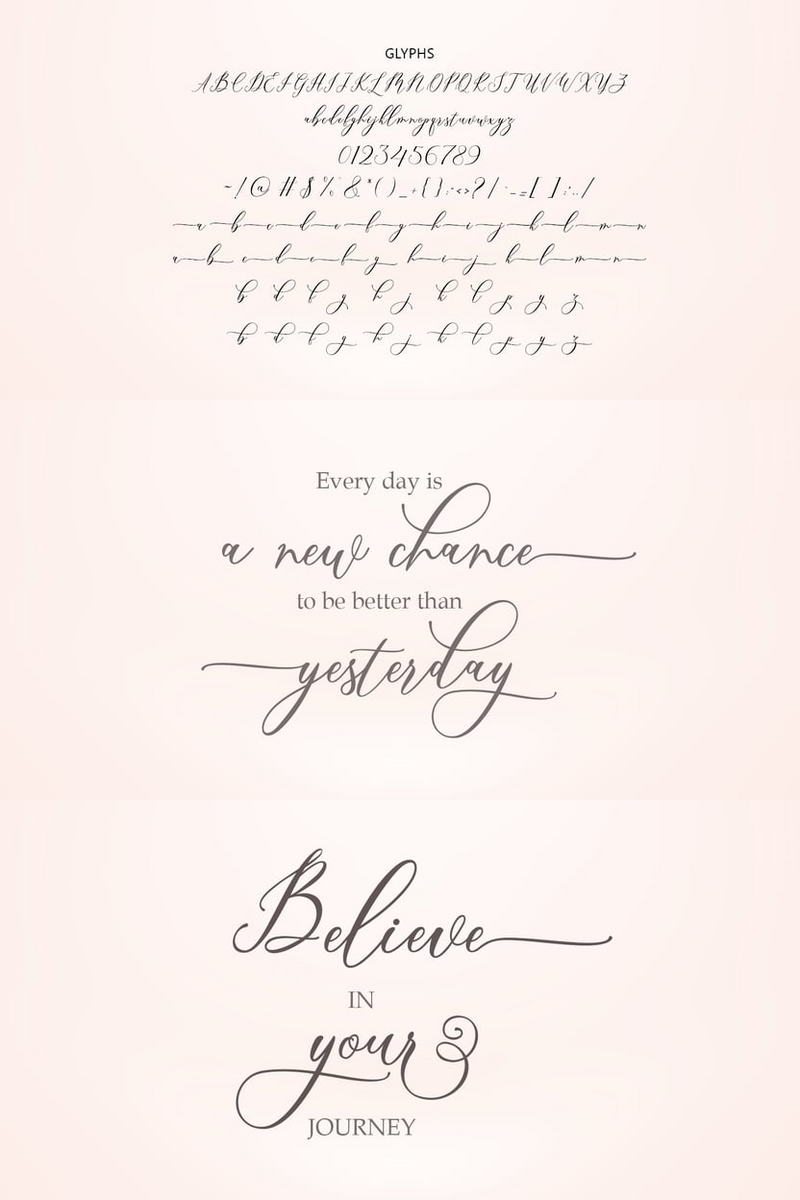
Ready to Spark Curiosity? Could Mairenza's Vintage Charm Turn Your 'Learning Modules' into 'Adventures in Knowledge' and 'Study Guides' into 'Treasures Uncovered' on Educational Platforms?
Hey there, design wizard! Mairenza here, and I've been bubbling with excitement, waiting for this very moment to introduce myself. You see, I'm not just a font; I'm a whisper from a bygone era, a friendly nod to all those cherished memories wrapped up in old books, handwritten letters, and classic classroom adventures. Think of me as that cool, wise grandparent who always has the best stories, but also knows exactly how to use a tablet.
In a world buzzing with sleek, modern designs, I bring something wonderfully different to your educational and learning platforms. We're all drowning in a sea of sans-serifs and a sea of information, right? My mission? To cut through that noise with a warm, inviting glow. I don't shout for attention; I beckon it. My vintage and nostalgic charm isn't about being old-fashioned; it's about making content feel familiar, trustworthy, and utterly delightful. I tell a story before a single word is read, making complex topics instantly more approachable, like finding a secret compartment in an antique desk.
What makes me truly special, you ask? It's my uncanny ability to evoke an emotional connection, turning passive learners into eager explorers. I solve that common design challenge of making digital educational content feel personal and engaging. My gentle curves and classic letterforms feel like coming home, fostering a sense of comfort and curiosity that makes learning less of a chore and more of an enchanting discovery. I bring a playful spirit to even the most serious subjects, ensuring that every headline, every lesson title, and every bit of important text carries an intrinsic sense of wonder.
Mairenza: Unlocking Minds with a Wink to the Past.
Where do I truly shine? Imagine me gracing the headlines of your history e-courses, turning "World War II" into "Echoes of the Great Conflict." Picture me inviting students into "The Enchanted Forest of Literature" on your virtual library page. I'm perfect for crafting engaging titles for interactive quizzes, lending a touch of gravitas and charm to certificates of achievement, or giving a unique personality to your children's educational app interfaces. I'm your go-to for making "Science Experiments" feel like "Adventures in Discovery" and "Language Lessons" feel like "Journeys of Words." From playful prompts to memorable module names, Mairenza adds that touch of magic to your educational platforms.